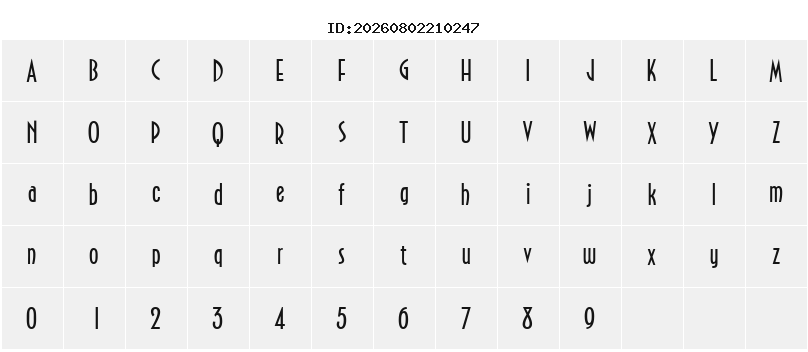
• Font Name: Northfields DB
• Full Font Name: Northfields-Regular DB
About Northfields DB.ttf
Northfields DB.ttf is a modern, elegant sans-serif font designed for ultimate readability and visual harmony. Perfect for branding, headlines, web design, and print materials.